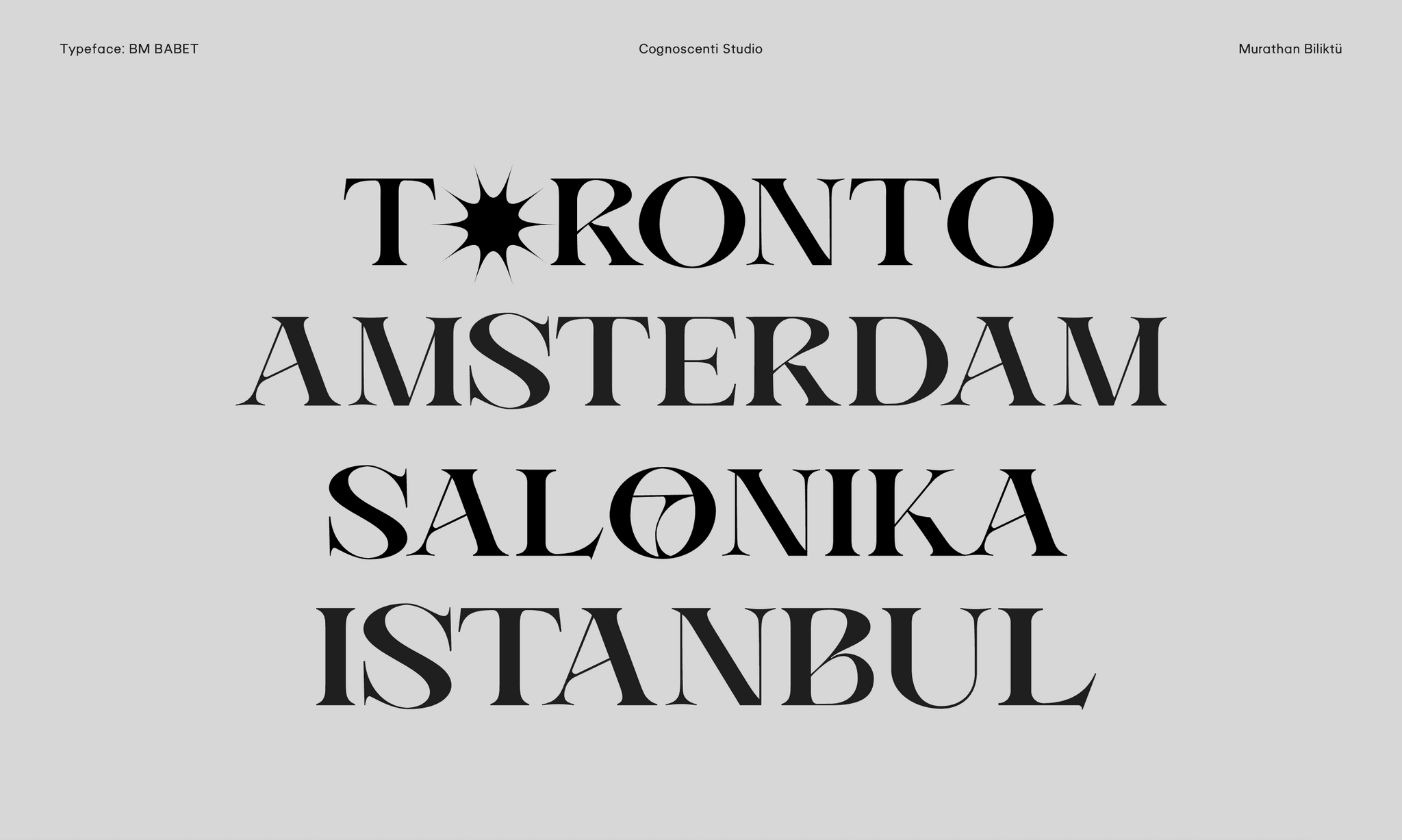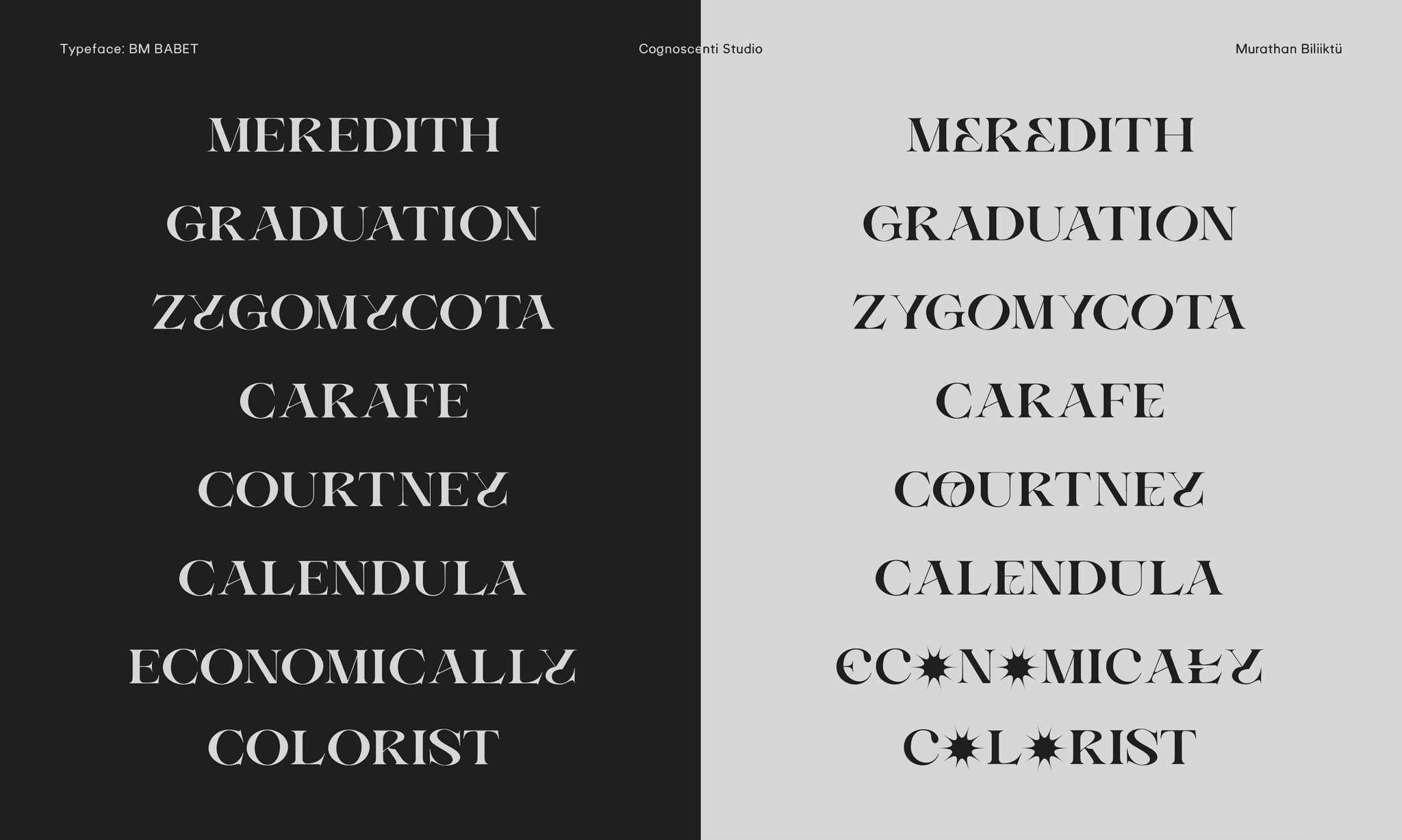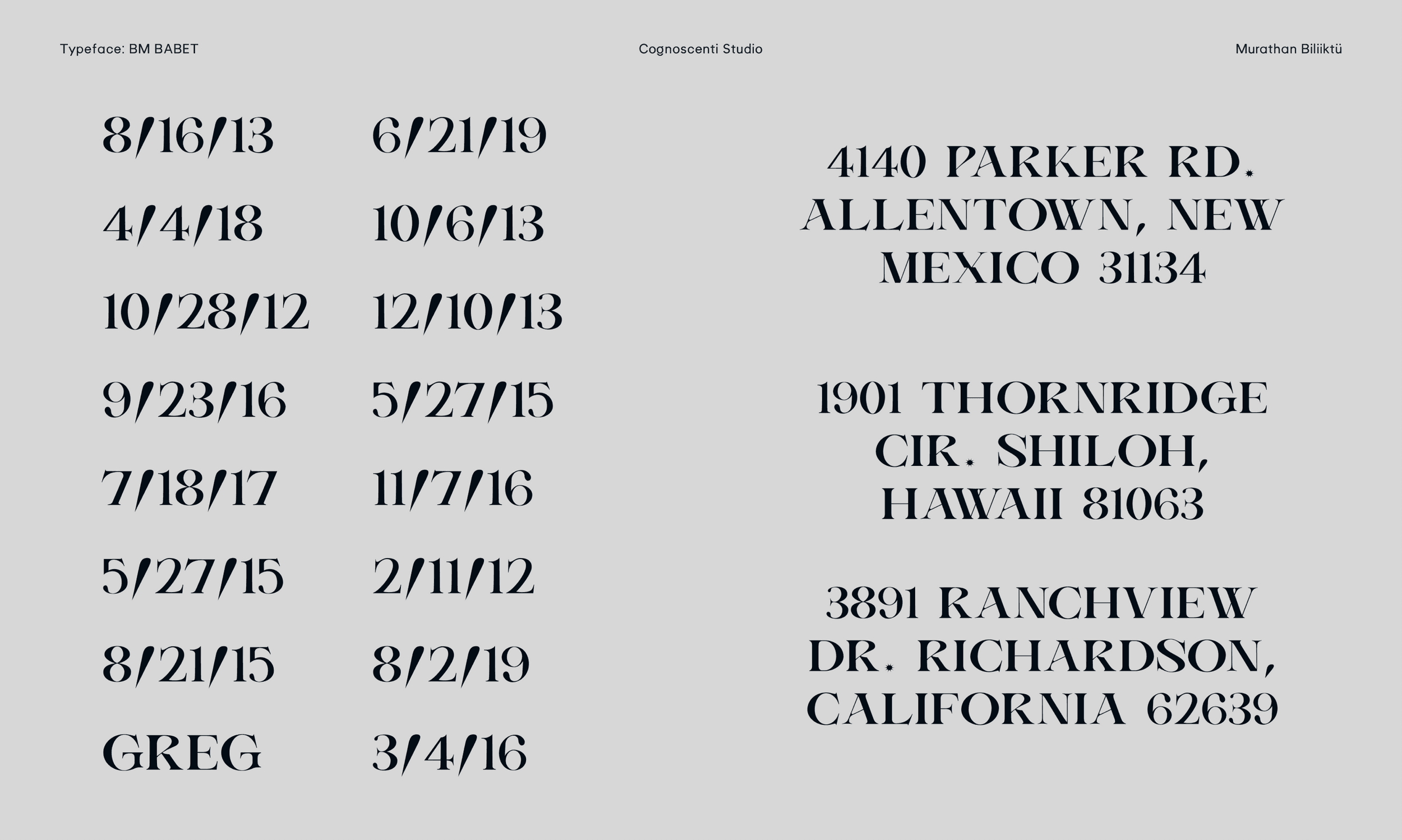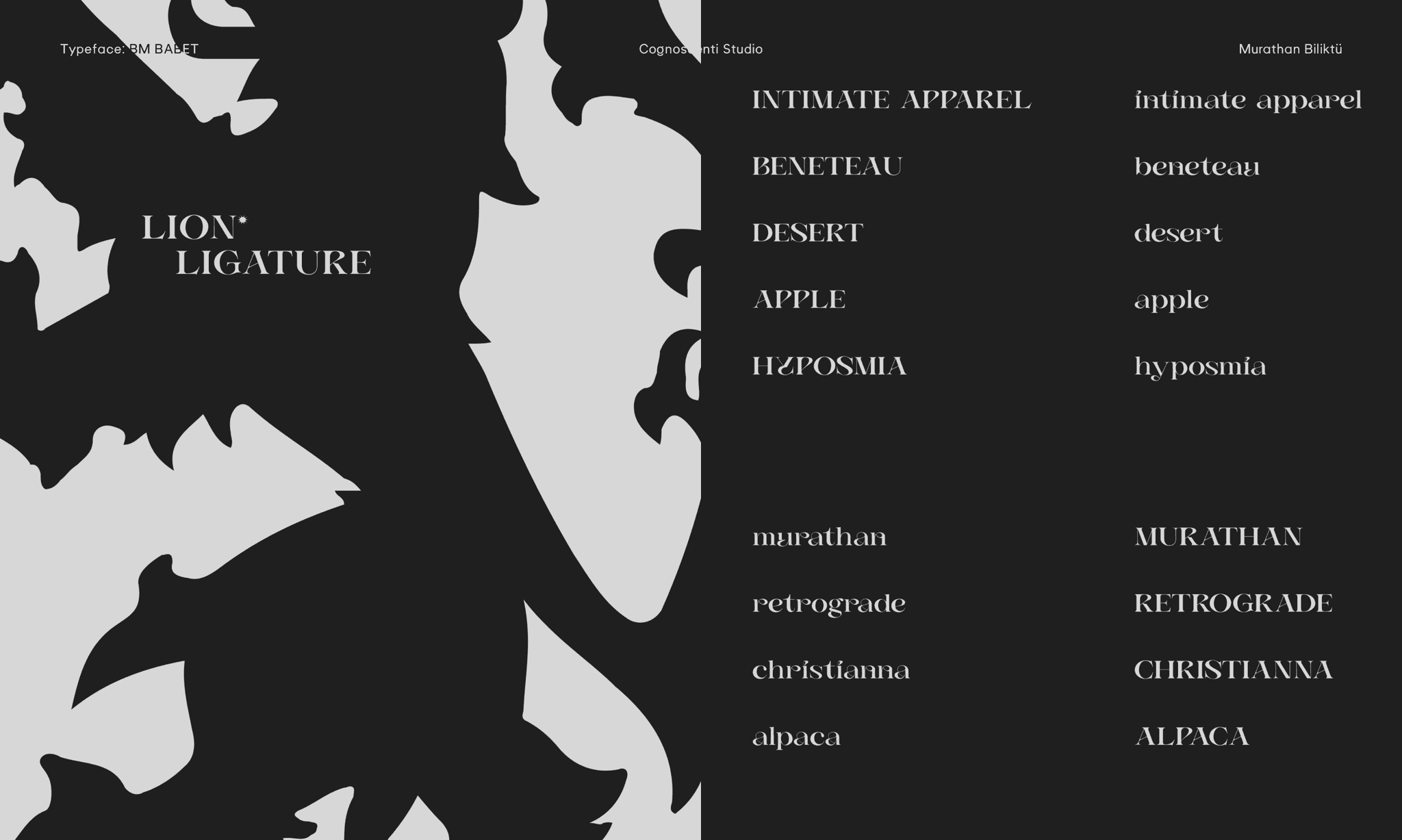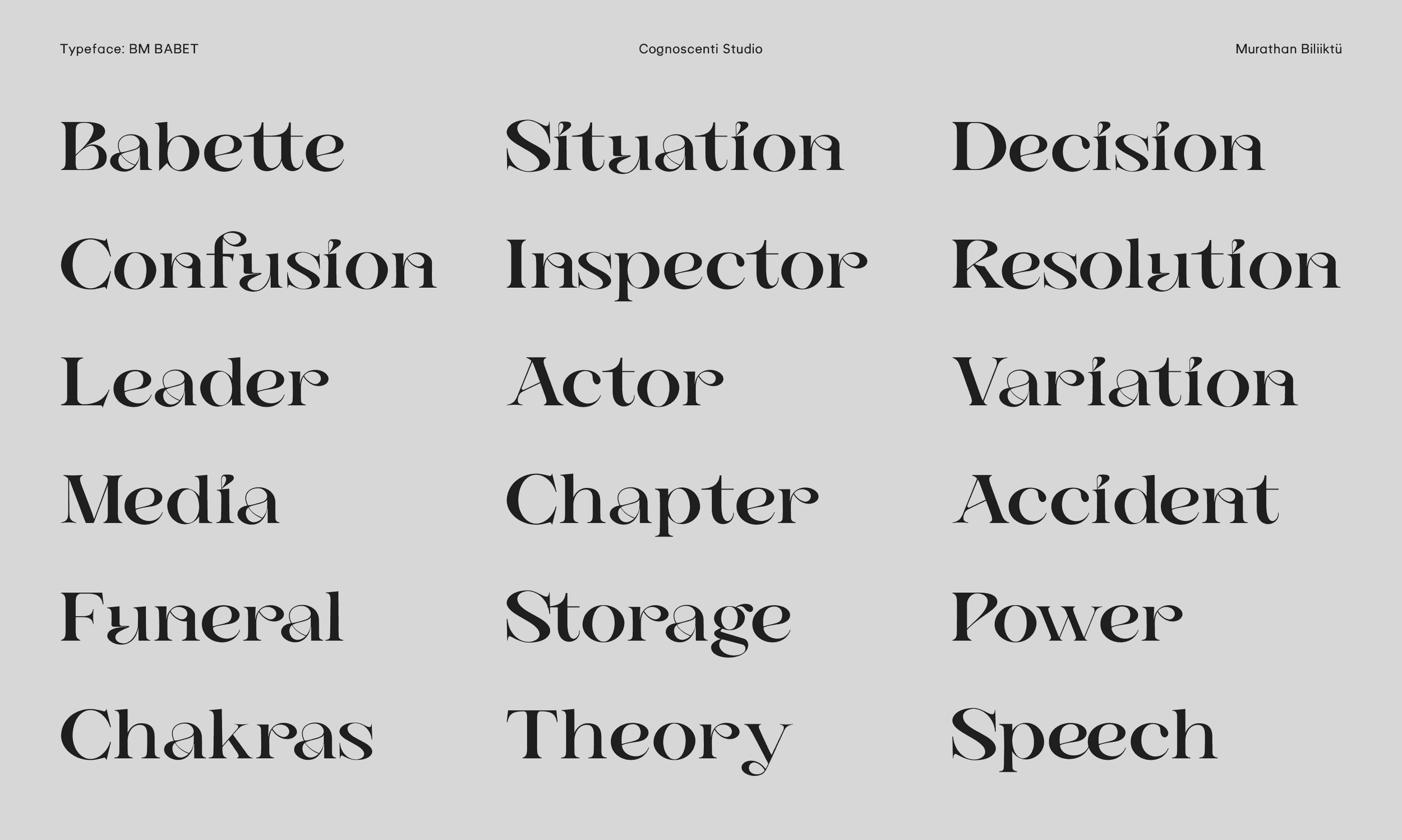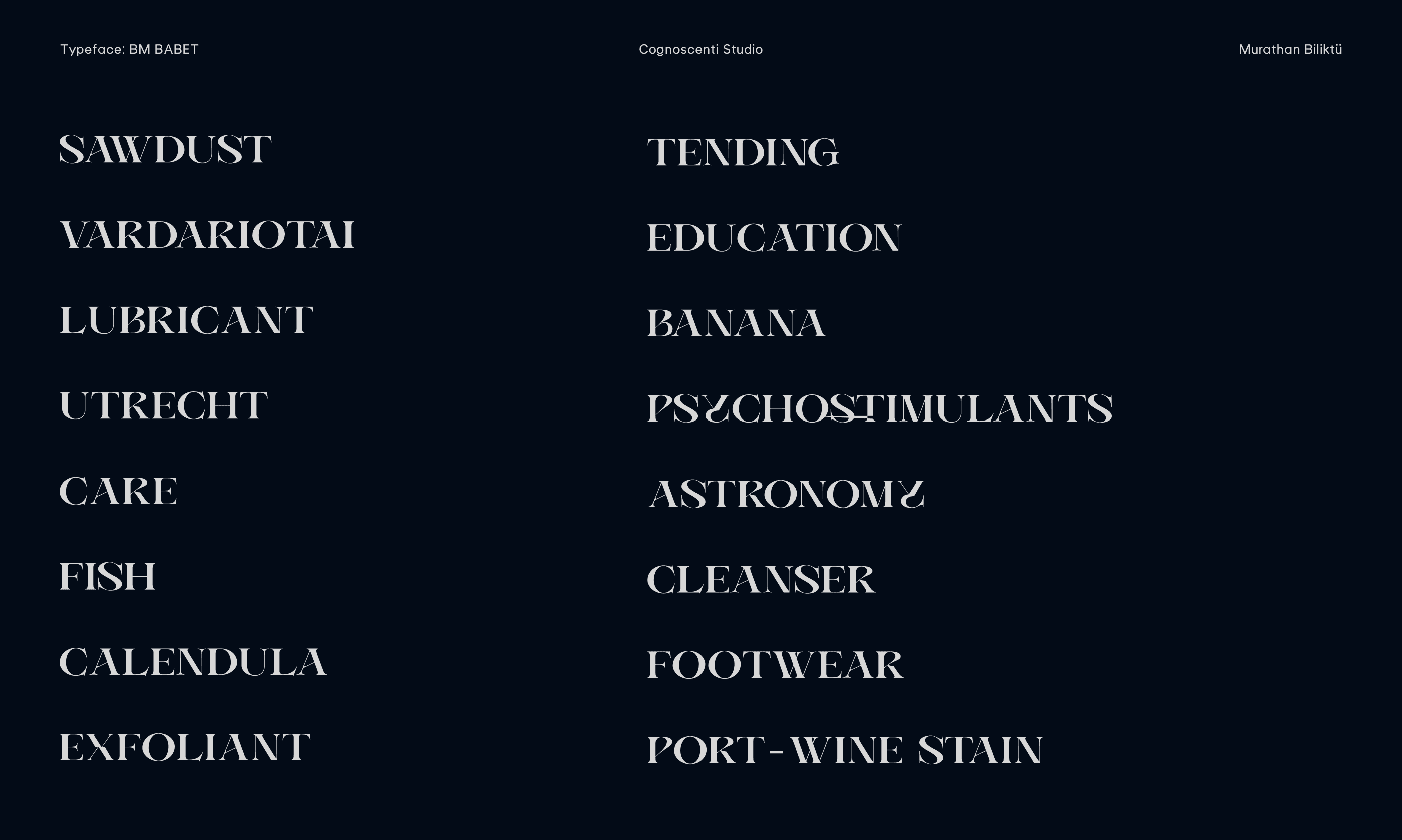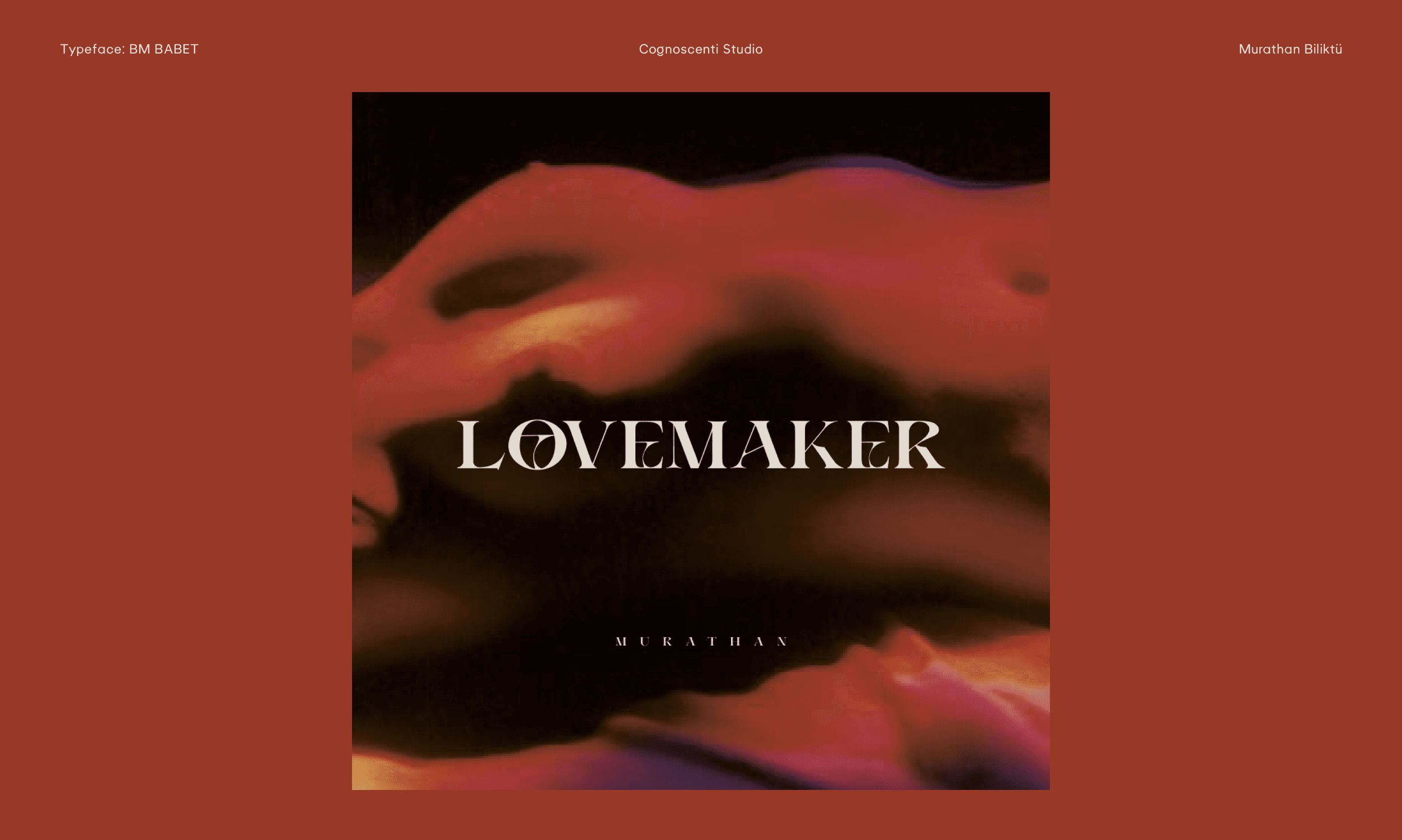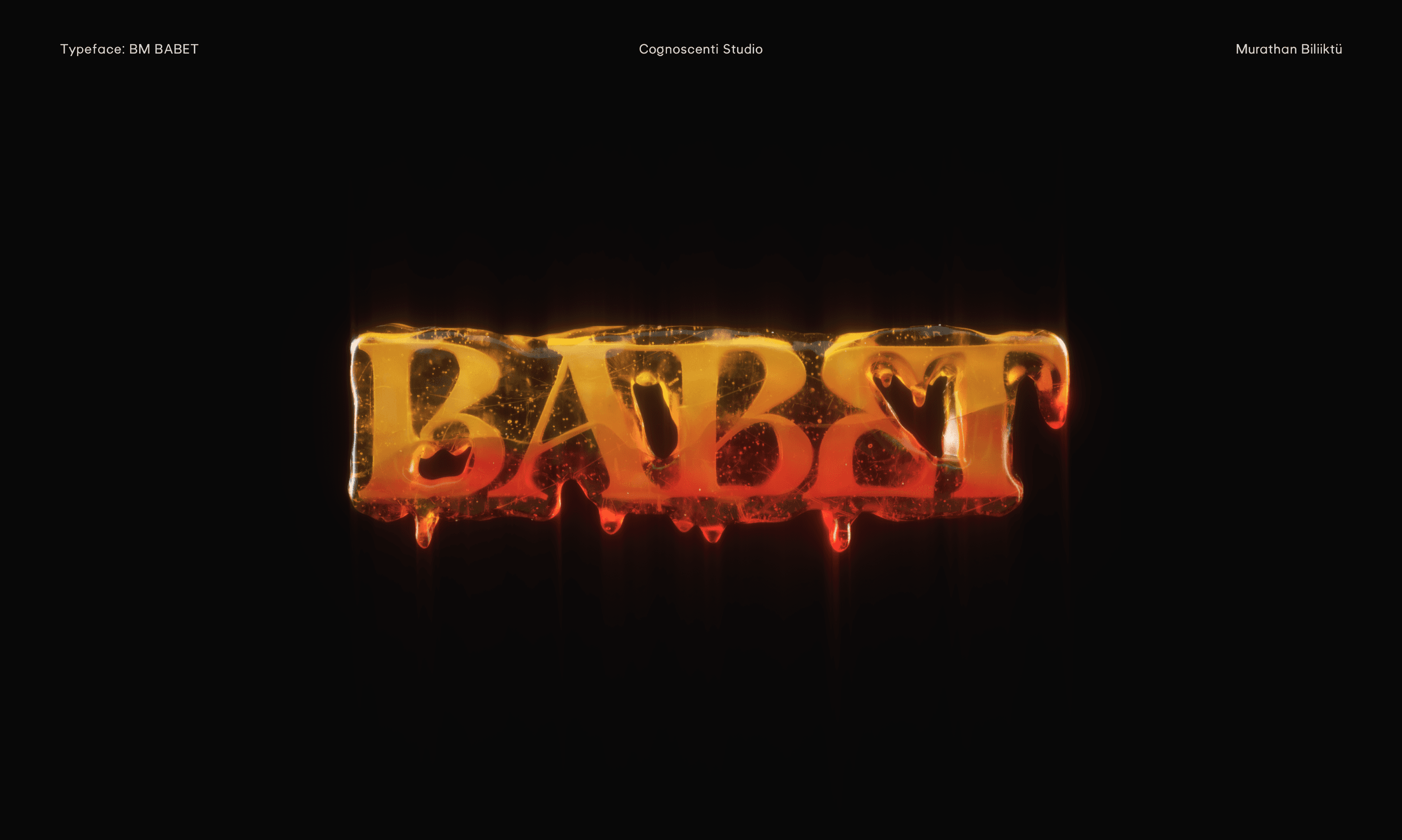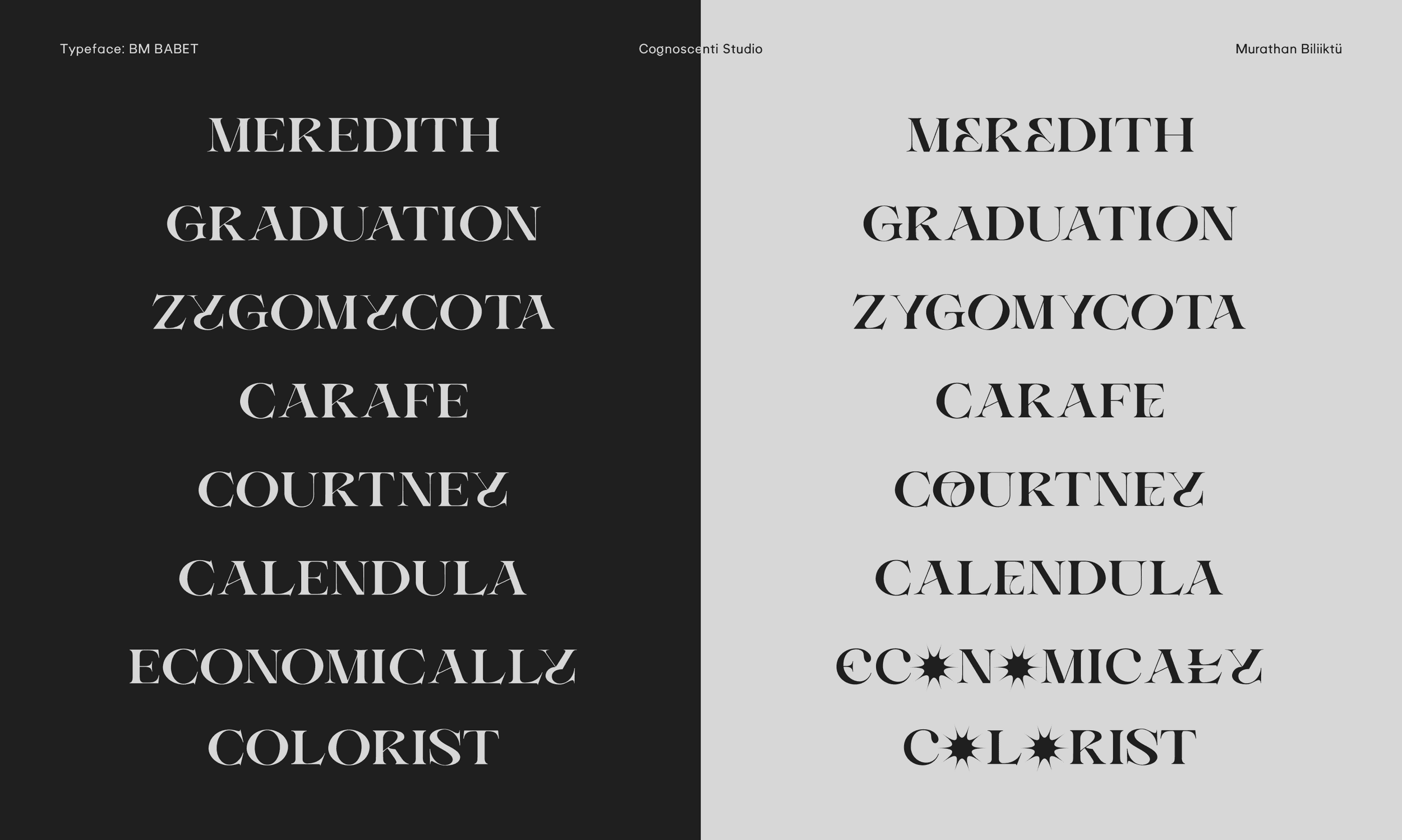
I collaborated with Babet (@heyimbabet) to design something that looks like it came straight out of a fashion magazine from the 1980's, timeless while being unique to reflect Babet's personality.